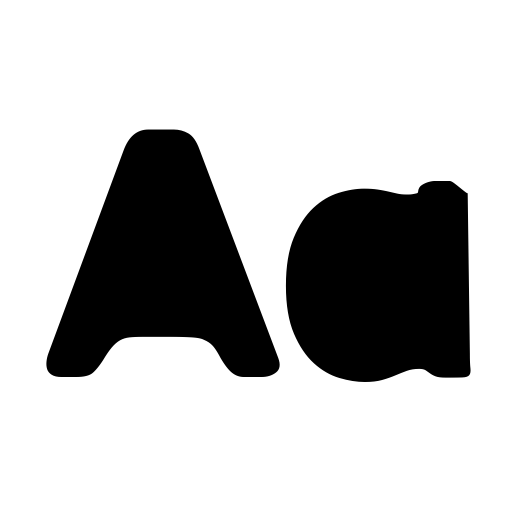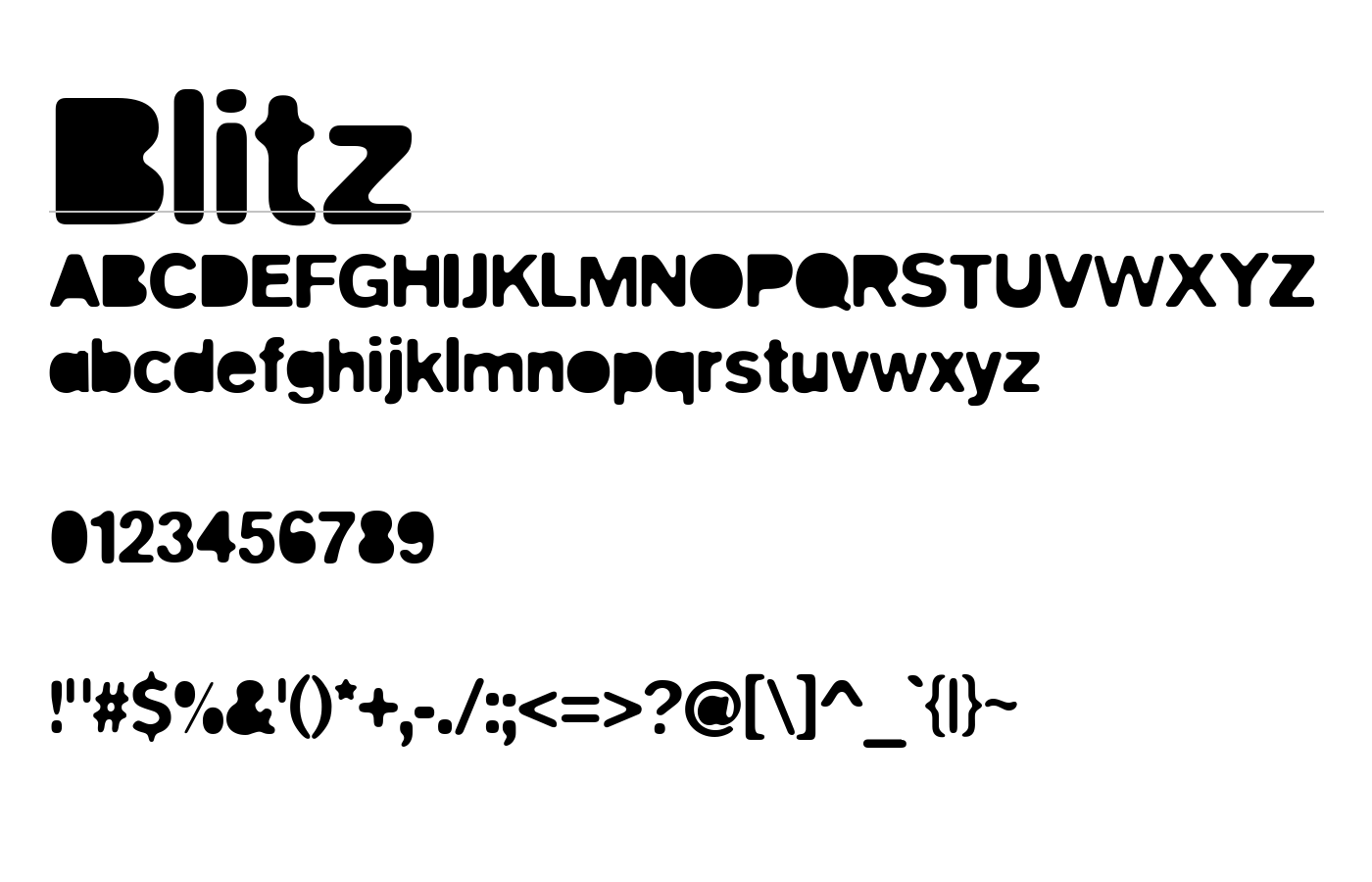
Blitz is a bold, rounded sans serif font with a playful and chunky appearance, characterized by its thick strokes and soft edges that give it a friendly and approachable feel. Its unique letterforms, including single-story lowercase letters and wide, tightly spaced characters, make it ideal for eye-catching headlines, logos, and designs aiming for a fun, modern vibe. This font works well in creative branding, posters, and packaging where a strong, informal presence is desired.
Blitz Font